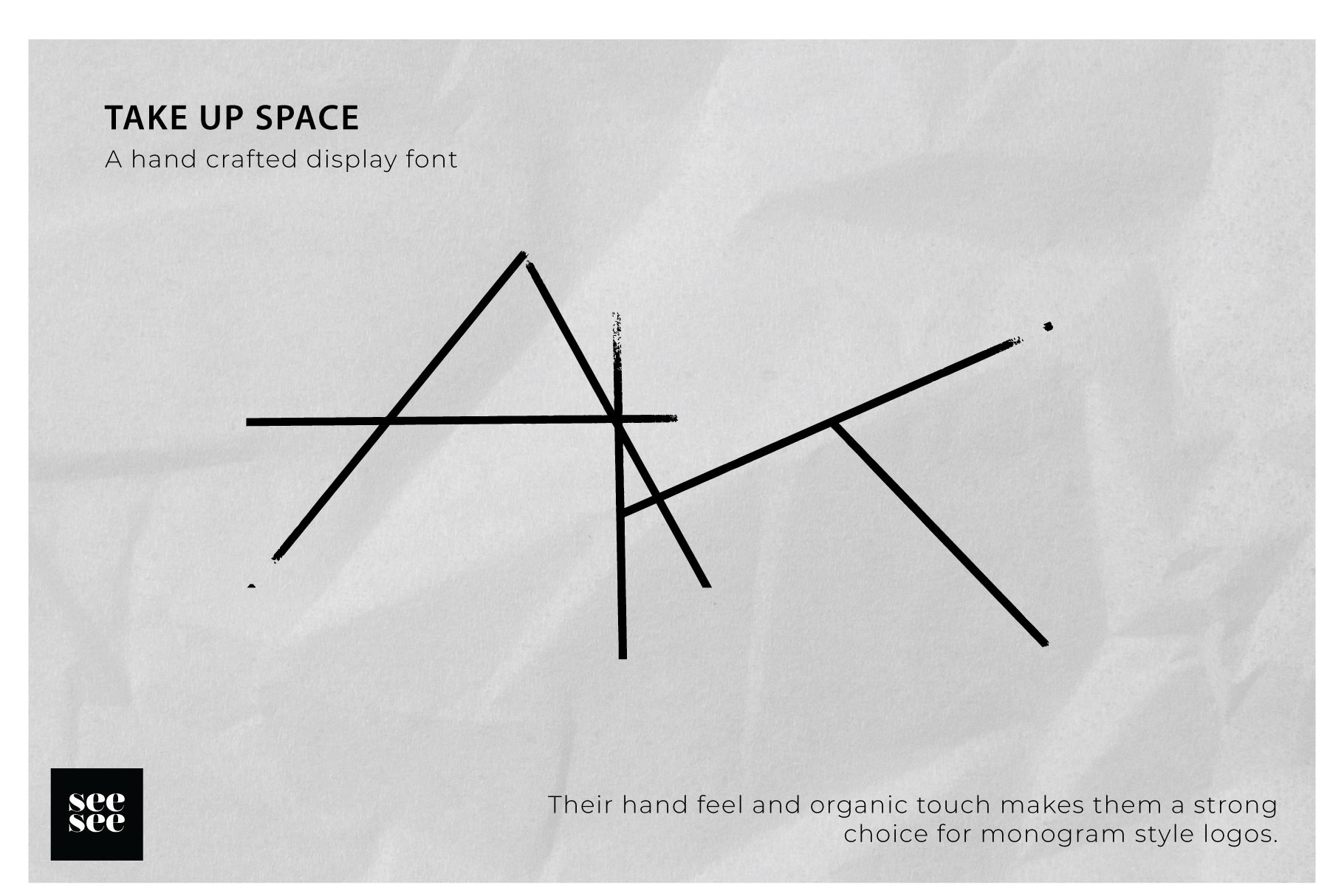
Take Up Space Hand Drawn Font
Take Up Space A hand crafted display font with organic irregularity. TTF & OTF files included. Adobe Illustrator file containing the vector outlines of the original characters is also included which allows you to utilize the beautiful organic irregular textures. These give a truly hand crafted look to your designs.